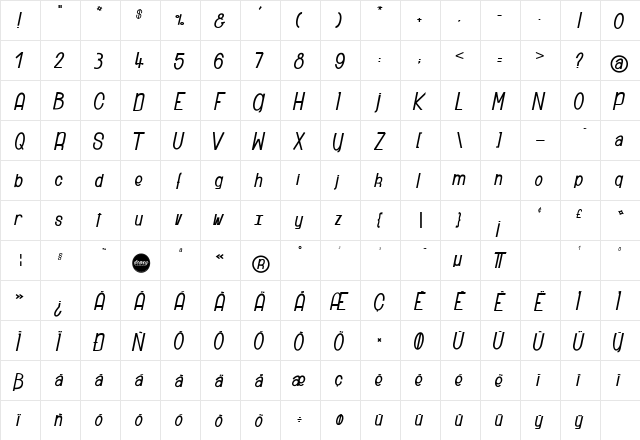
Ridiculous Regular
| Foundry | dcoxy Medina Gregory |
| Designer | dcoxy Medina Gregory |
Design Context for Ridiculous Typeface
Ridiculous offers clean, dependable letterforms without strong stylistic allegiance, making it a practical choice for designers who need flexibility.